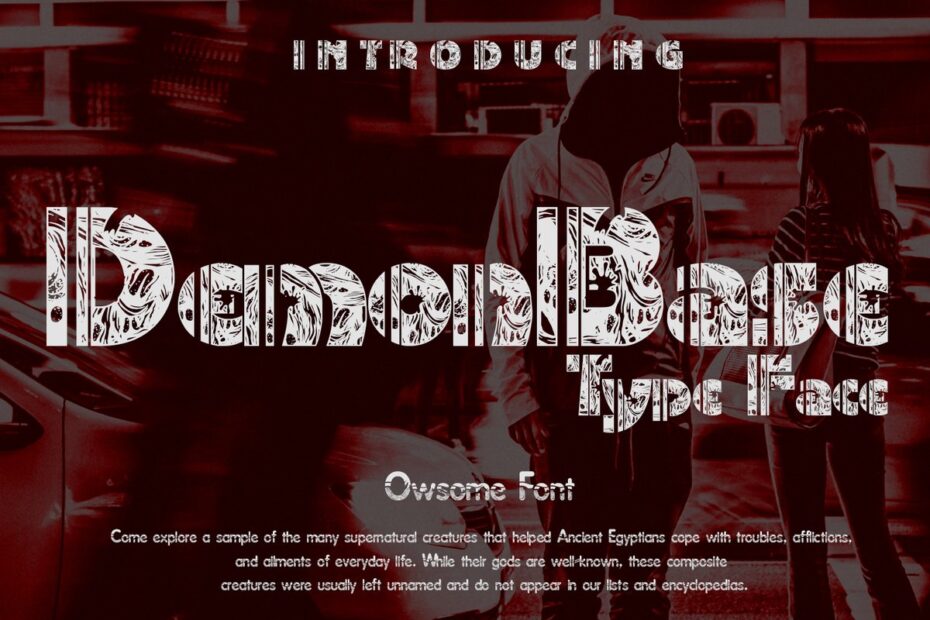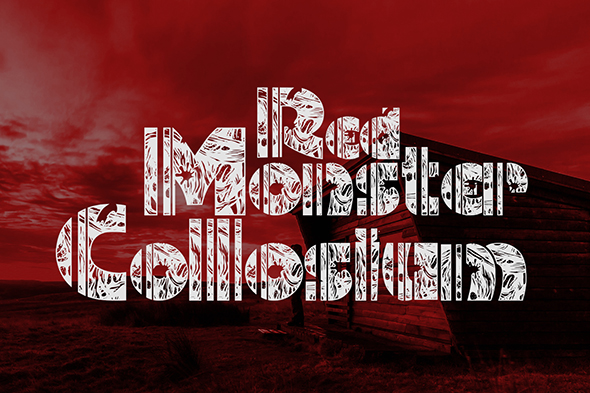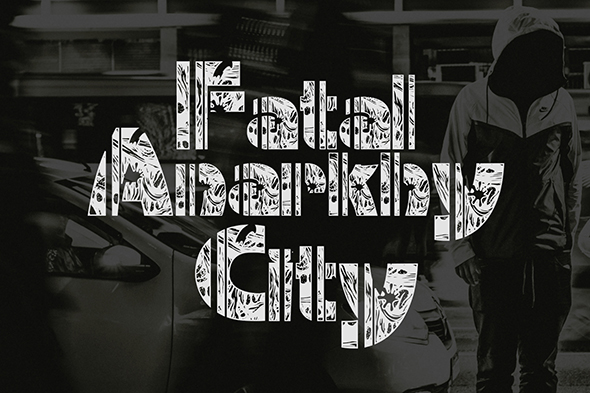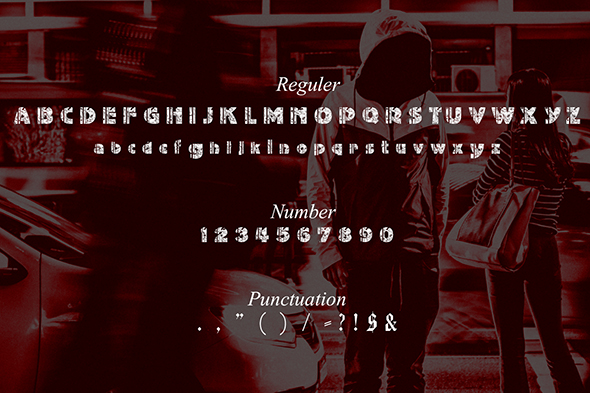
Unleashing the Power of Typography: The DemonBase Font
Have you ever stared at a blank canvas, wondering where to start your next creative project? The blank page can be intimidating, but it’s also an opportunity to let your imagination run wild. As a designer, you know that the right font can make all the difference in bringing your vision to life. This is where the DemonBase Font comes in – a unique, handcrafted font designed to add an edge to your designs.
Created by Gblack Id, Anthurium, the DemonBase Font is more than just a font – it’s a statement piece. Its bold, gothic-inspired style is perfect for adding a touch of sophistication and mystery to your designs. Whether you’re working on a branding project, a poster, or a website, this font is sure to turn heads. For designers, the DemonBase Font is a valuable addition to any toolkit, offering a level of creativity and versatility that’s hard to find elsewhere.
DemonBase Font Key Features
- Font Size: The font has a total of 300 glyphs, providing a comprehensive set of characters for various languages and scripts.
- Unique Characteristics: The font features a unique, hand-drawn design with a distressed, vintage look, adding a touch of elegance and sophistication to any text-based application.
- Language Support: DemonBase Font supports a wide range of languages, including Latin, Cyrillic, and Greek scripts, making it a versatile choice for international applications.
- Font Style: The font comes in three different styles: Regular, Italic, and Bold, providing users with a range of options to suit their design needs.
DemonBase Font Review
Overall, I think the DemonBase Font has some great features, but also some limitations that might make it less suitable for certain projects. ✨
- The font’s gothic-inspired design is perfect for horror-themed projects, gothic architecture, or even fantasy settings.
- The font is highly customizable, with a wide range of options for adjusting the look and feel.
- The font is well-suited for both digital and print use, making it a versatile choice for designers.
- ⚠️ The font may be difficult to read for those who are not familiar with gothic-inspired typography.
- ⚠️ The font’s complexity may make it harder to pair well with other fonts or design elements.
- ⚠️ The font may not be suitable for projects that require a clean, modern look.
Overall, I think the DemonBase Font is a great choice for designers who are looking for a unique, gothic-inspired font for their projects. However, it may not be the best choice for every project, and designers should carefully consider the font’s limitations before making a decision.
Introduction to DemonBase Font
The DemonBase Font is perfect for:
1. Horror-themed designs and presentations.
2. Dark and edgy branding.
3. Gothic-inspired art and design.
Tips for Getting the Most Out of the DemonBase Font
1. Experiment with different font sizes and styles to create a dramatic effect.
2. Use the font in combination with other dark and bold fonts for a striking look.
3. Consider using the font in a distressed or grungy style to add an extra layer of depth.